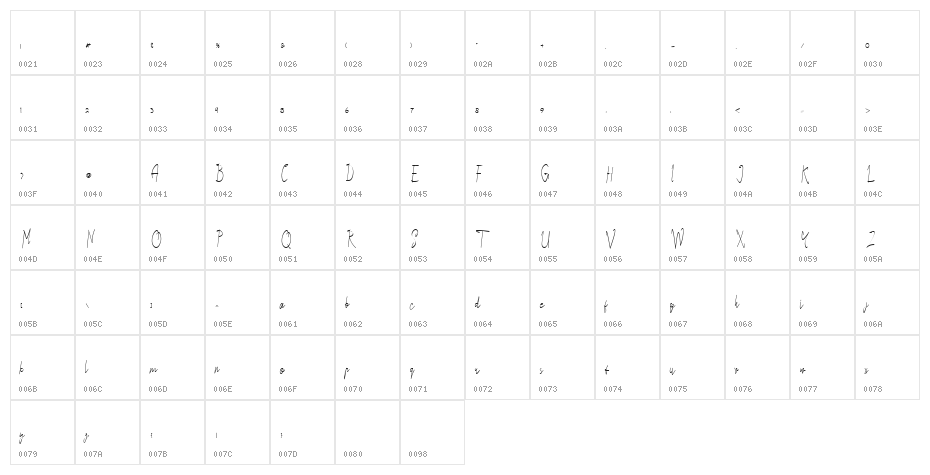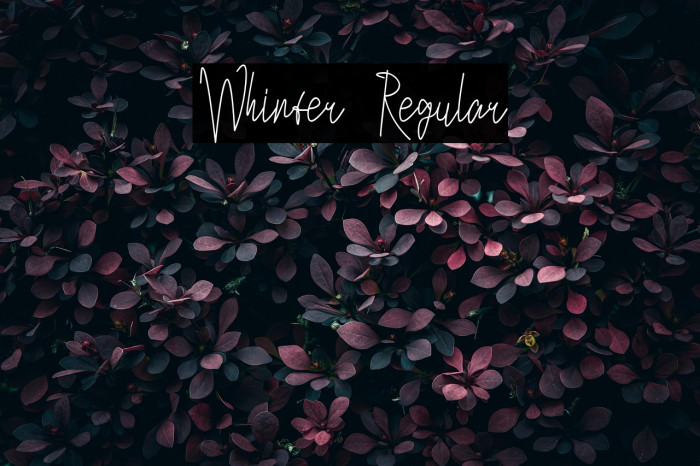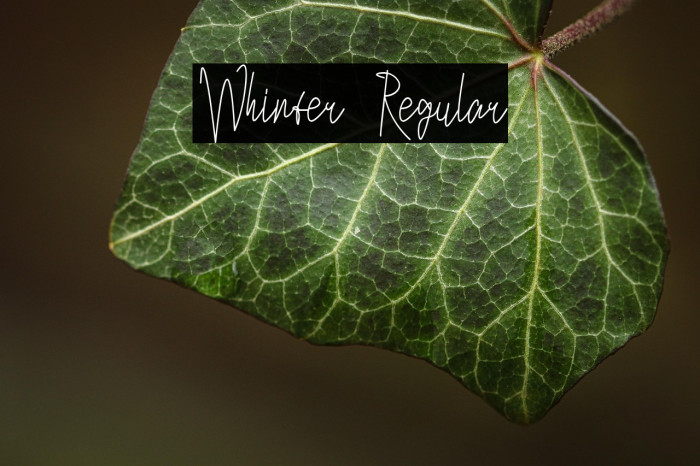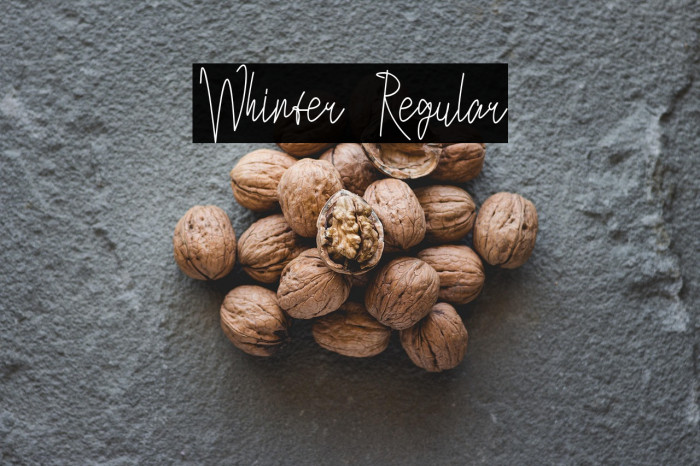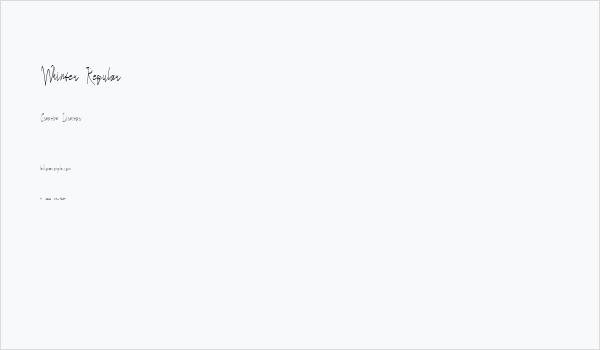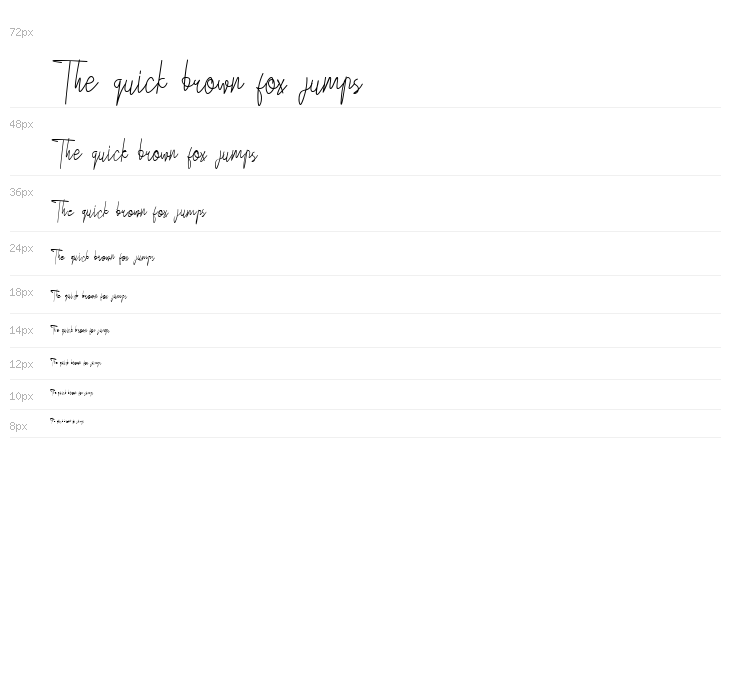
Whinter Regular Font
Whinter Regular Description
This font features a delicate and flowing script style that combines elegance with a touch of whimsy. The uppercase letters are tall and slender, with a slight slant that adds a dynamic feel. The lowercase letters are more fluid, with gentle curves and loops that enhance the handwritten appearance. The numerals are consistent with the overall style, maintaining the same slender and slightly slanted characteristics. Special characters are designed to complement the alphabet, with a cohesive look that ties the entire set together. This font's airy and graceful design makes it suitable for projects that require a personal and artistic touch.
| Overall Style | Elegant |
| Use Case | Logos, Invitations, Artistic projects |
| Proposed Projects | Ideal for wedding invitations, greeting cards, personal branding, and artistic projects. |